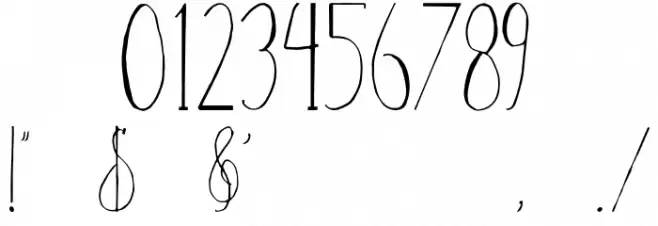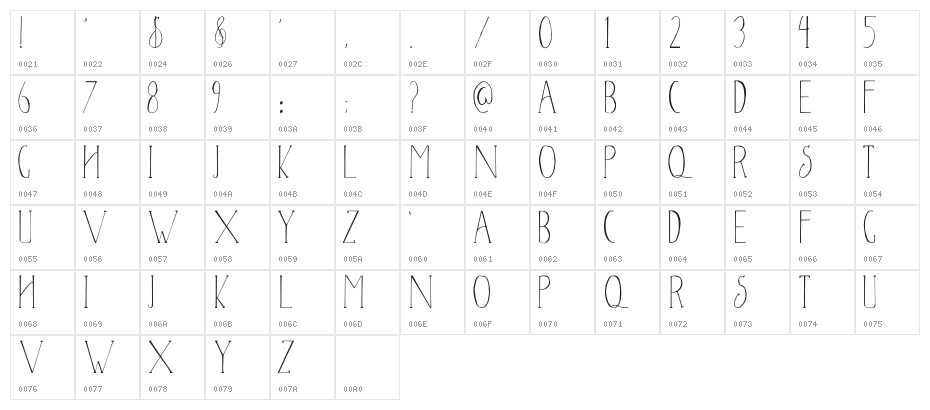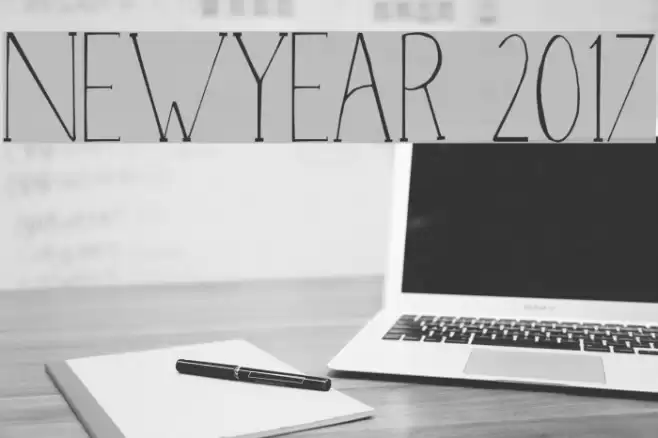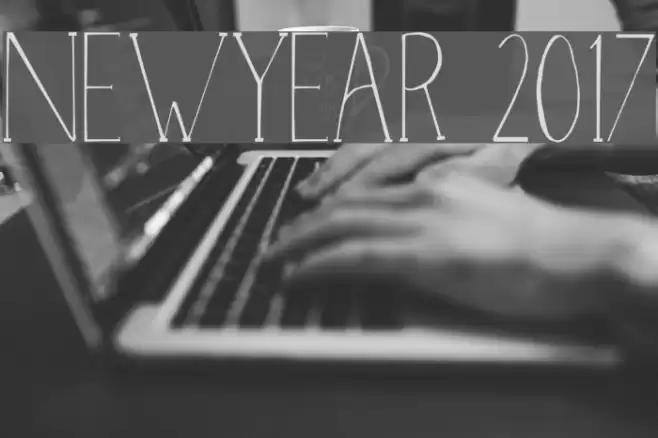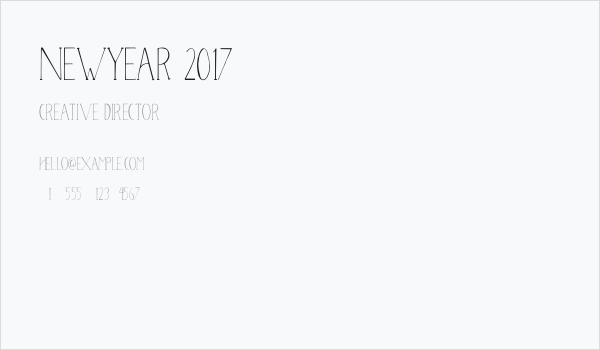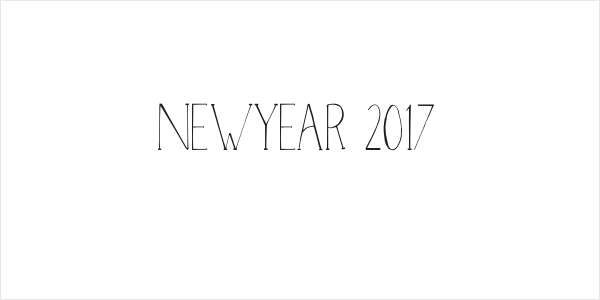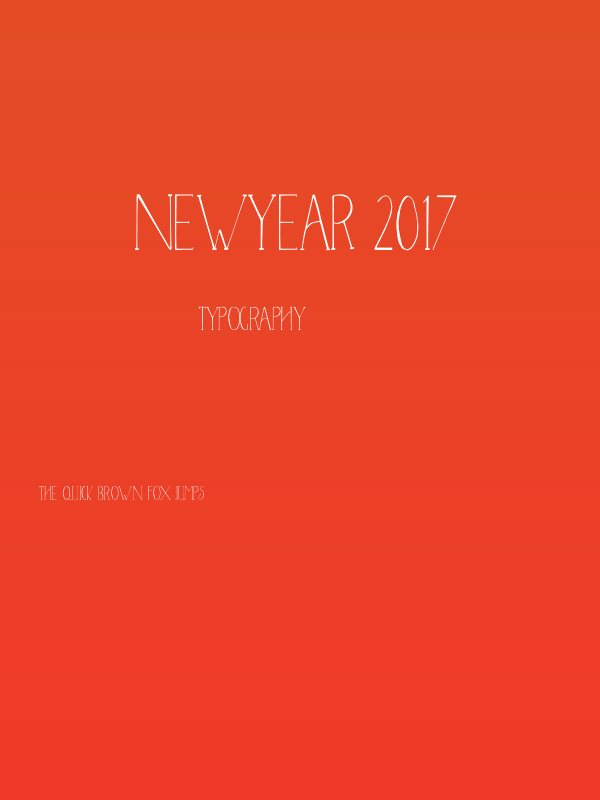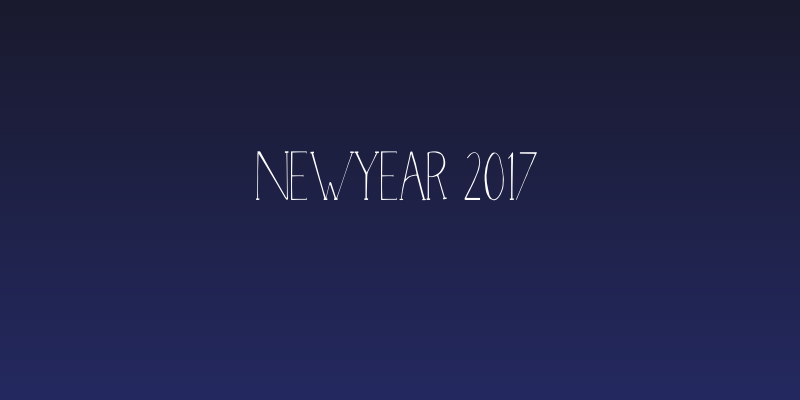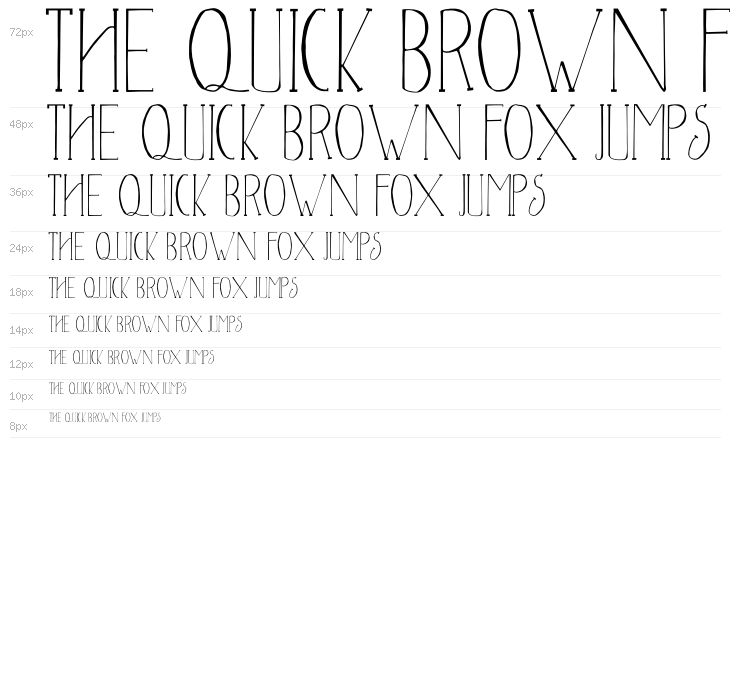
NewYear 2017 Font
NewYear 2017 Description
This font features a unique blend of elegance and modernity, characterized by its tall, slender letterforms with a distinctively narrow width. The uppercase letters exhibit a refined, elongated style, while the lowercase letters maintain a consistent height, adding to the font's cohesive appearance. The numerals are similarly styled, with a graceful curvature that complements the overall design. Special characters are thoughtfully integrated, maintaining the font's sophisticated aesthetic. The thin strokes and minimal contrast in thickness give it a delicate, airy feel, making it suitable for a variety of creative applications.
| Overall Style | Elegant, Modern |
| Proposed Projects | Ideal for wedding invitations, fashion branding, editorial design, and upscale product packaging. |